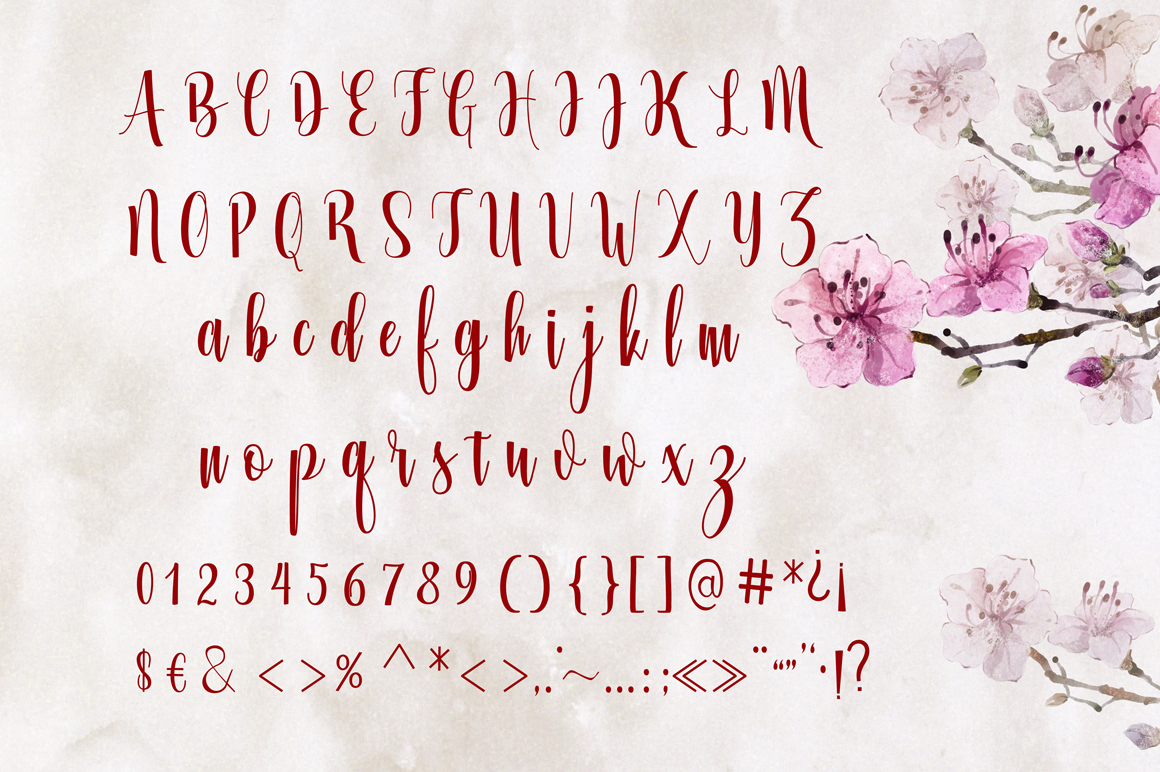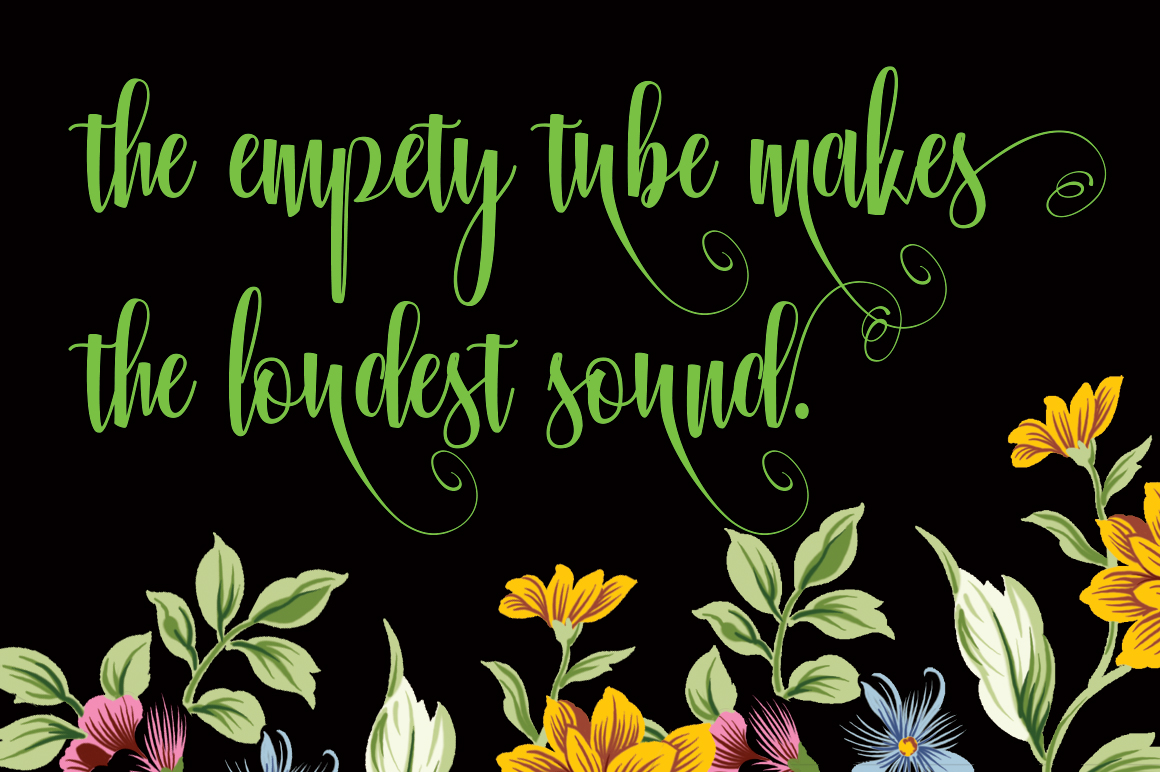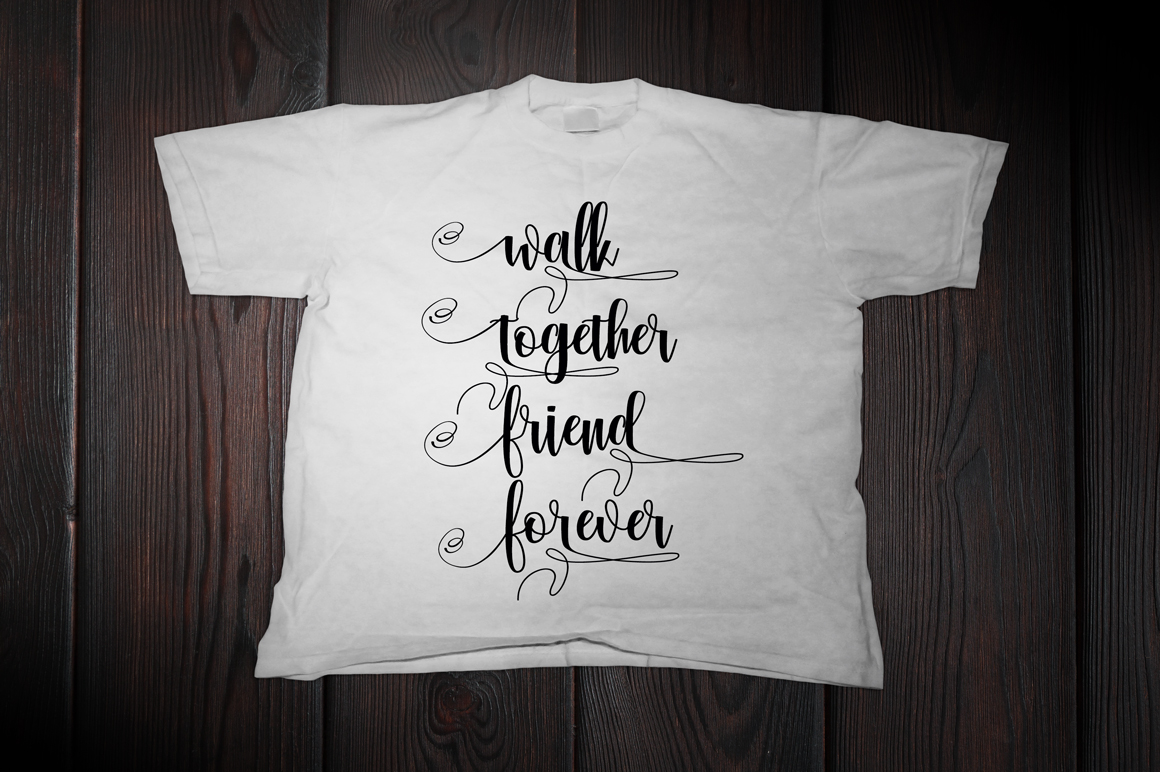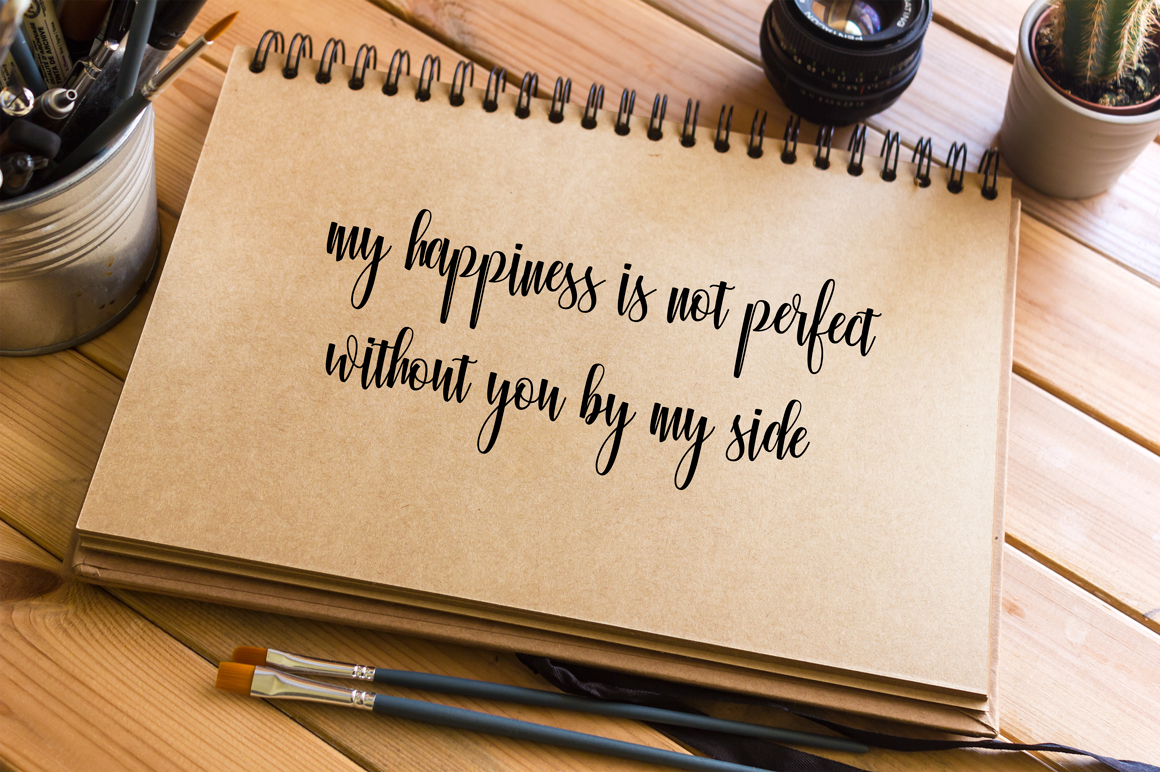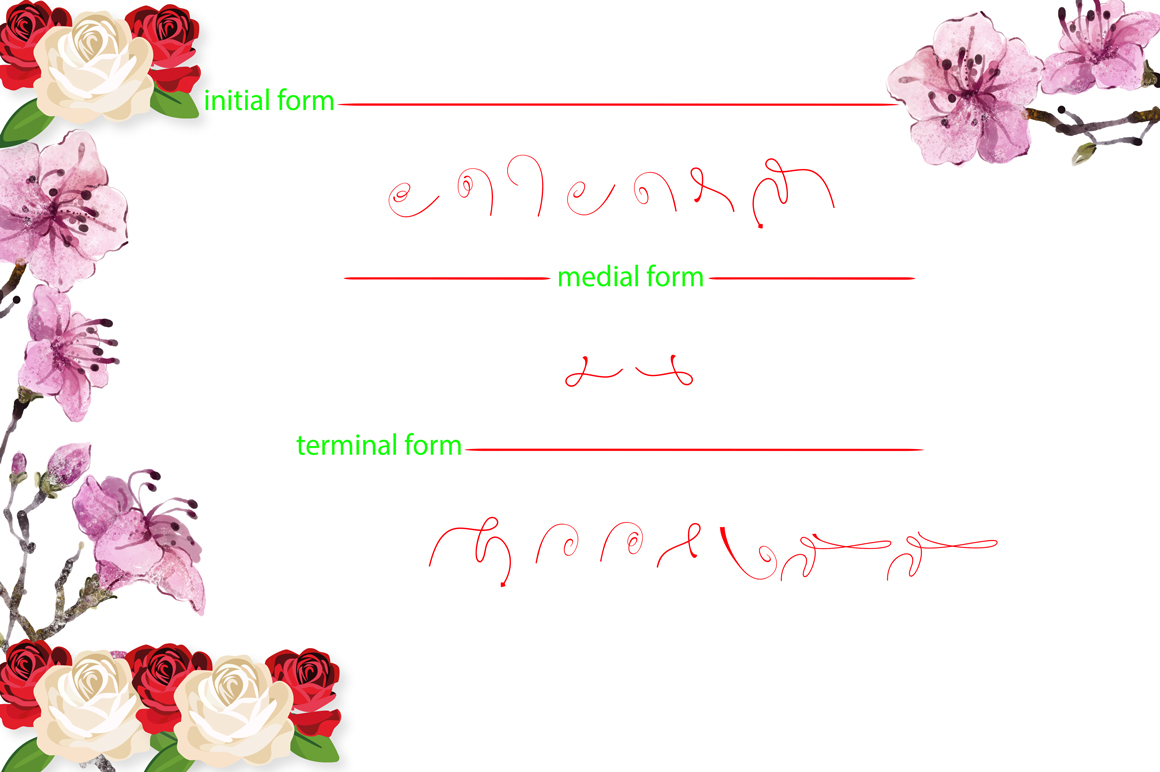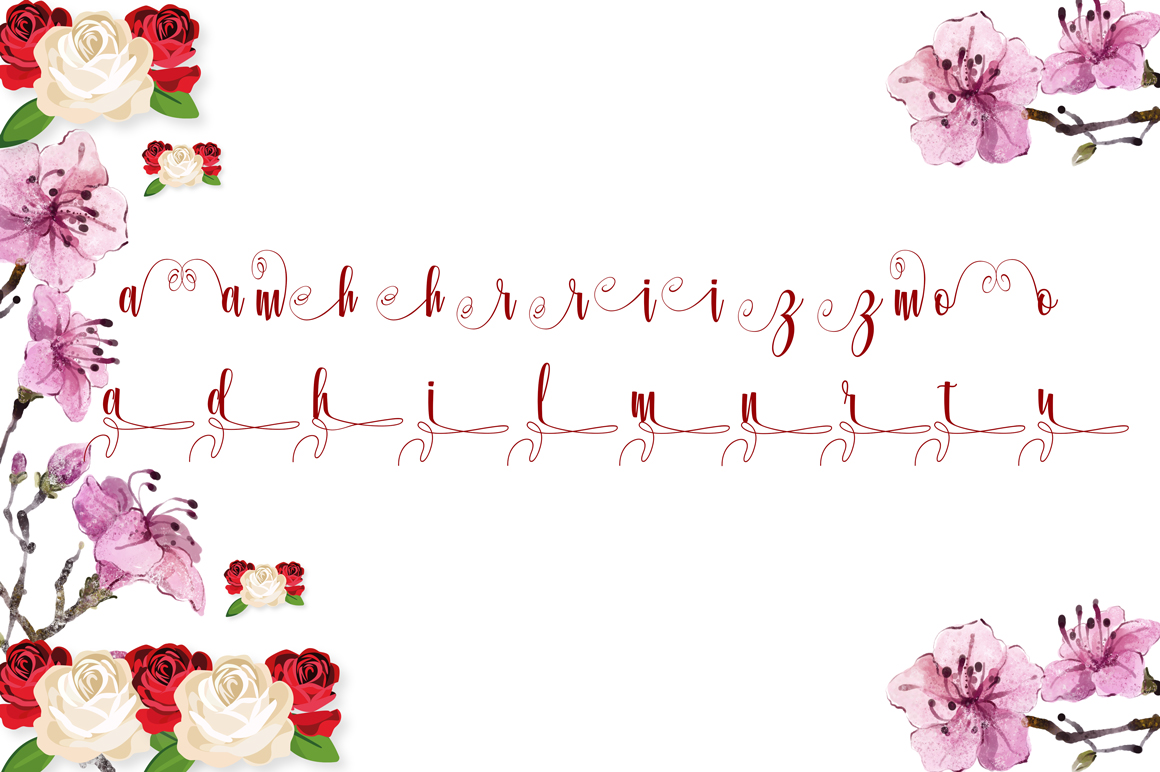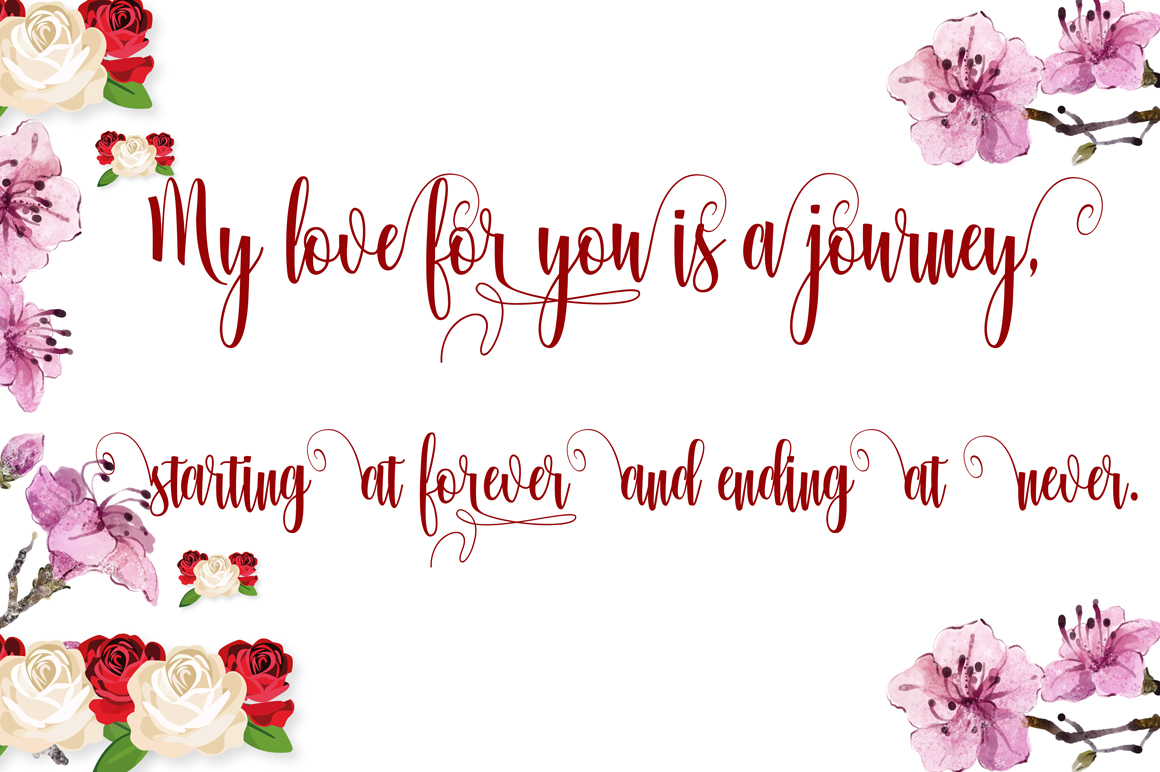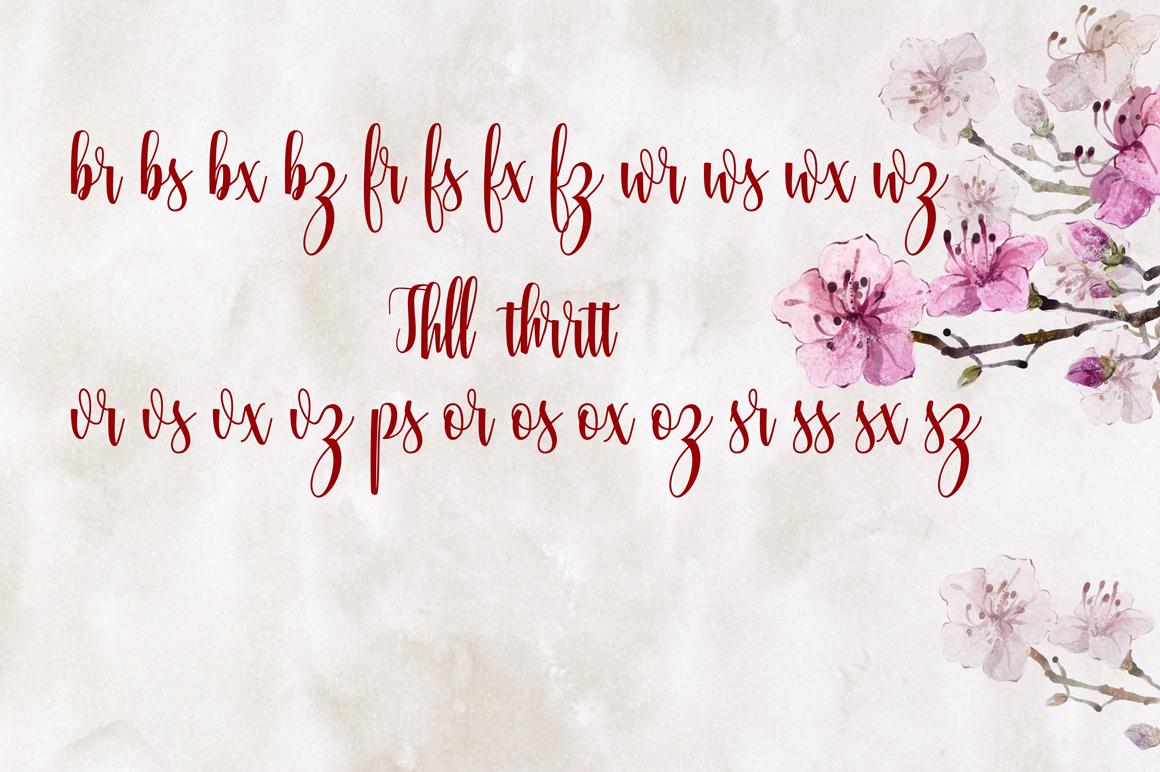
Glorious Font
About Glorious Font
Glorious is an elegant, modern calligraphy type.
The Glorious font was completely created by hand with pen and paper. After it was scanned, digitized and optimized. This ensures a very natural feeling.